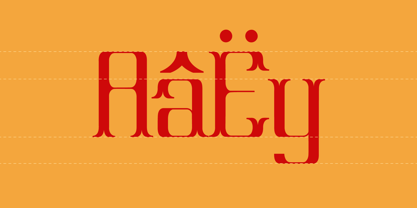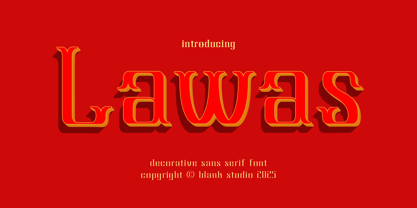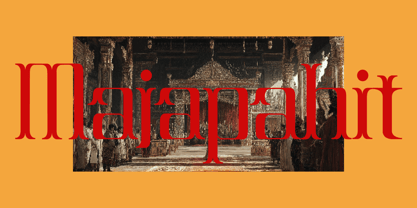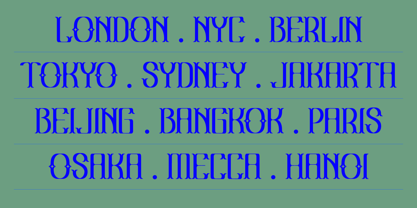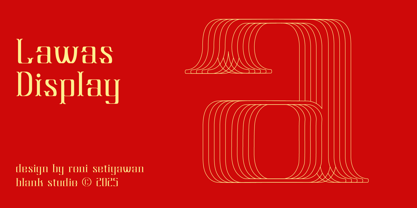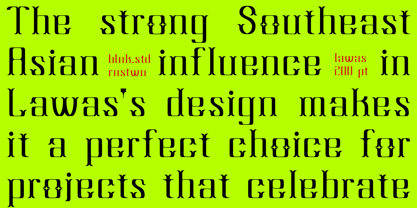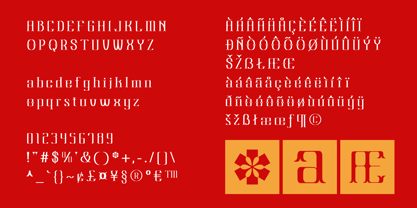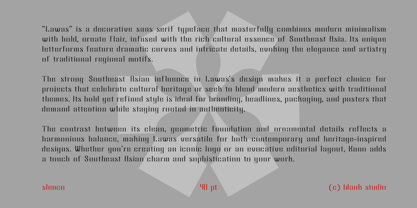
Lawas
by Blank Studio
Lawas is a decorative sans serif typeface that masterfully combines modern minimalism with bold, ornate flair, infused with the rich cultural essence of Southeast Asia. Its unique letterforms feature dramatic curves and intricate details, evoking the elegance and artistry of traditional regional motifs.
The strong Southeast Asian influence in Lawas's design makes it a perfect choice for projects that celebrate cultural heritage or seek to blend modern aesthetics with traditional themes. Its bold yet refined style is ideal for branding, headlines, packaging, and posters that demand attention while staying rooted in authenticity.
The contrast between its clean, geometric foundation and ornamental details reflects a harmonious balance, making Lawas versatile for both contemporary and heritage-inspired designs. Whether you're creating an iconic logo or an evocative editorial layout, Lawas adds a touch of Southeast Asian charm and sophistication to your work.